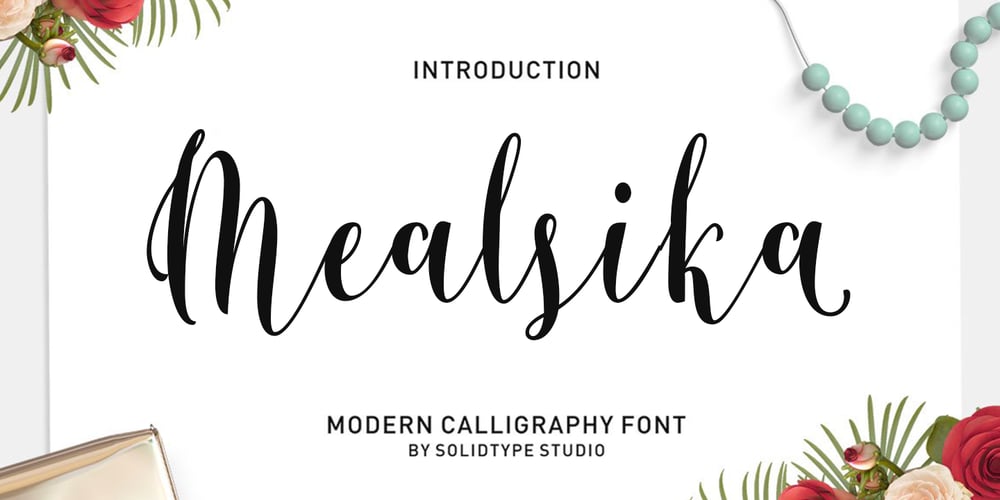
Mealsika Script Font Family was designed by Riski Firmana and published by Solidtype. Mealsika Script contains 1 styles and family package options. Say hello to Mealsika Script – A contemporary script with a vintage calligraphy style with moving baseline and an elegant touch.That makes the font look fabulous! It can be used for various purposes such as headings, signatures, logos, wedding invitations, t-shirts, letterhead, signage, labels, news, posters, badges, and more.Features 350+ glyphs and 179 alternate characters including initial and terminal letters, alternates, ligatures and multiple language support.To enable the OpenType Stylistic alternates, you need a program that supports OpenType features such as Adobe Illustrator CS, Adobe Indesign & CorelDraw X6-X7, Microsoft Word 2010 or later versions.These are all coded with PUA Unicode. Mac users can use Font Book and Windows users can use Character Map to view and copy any of the extra characters to paste into your favourite text editor/app.Thanks and Happy Creating ๐